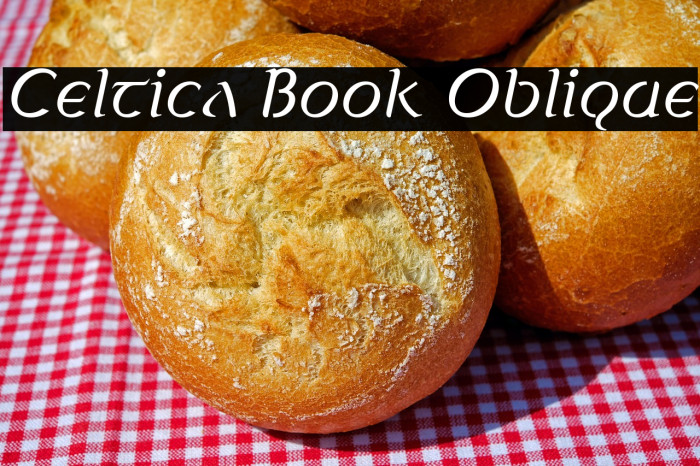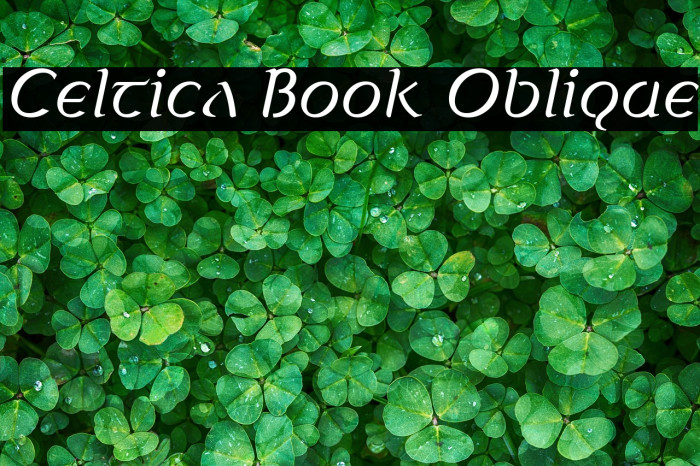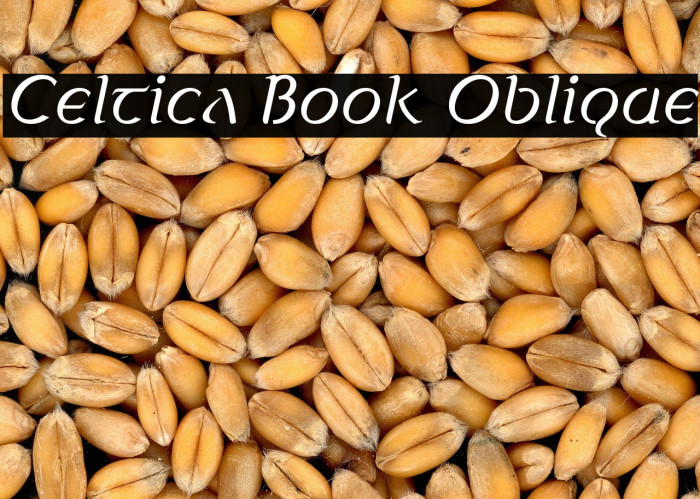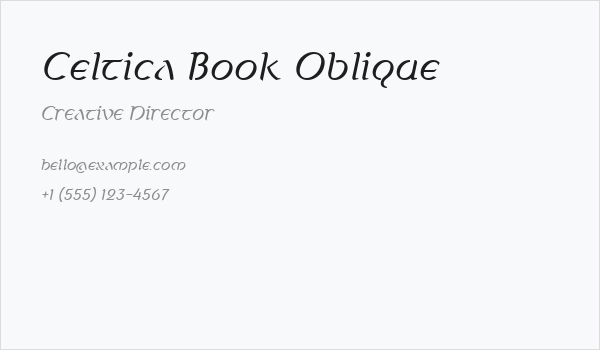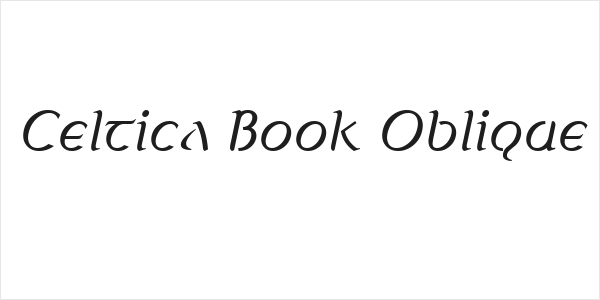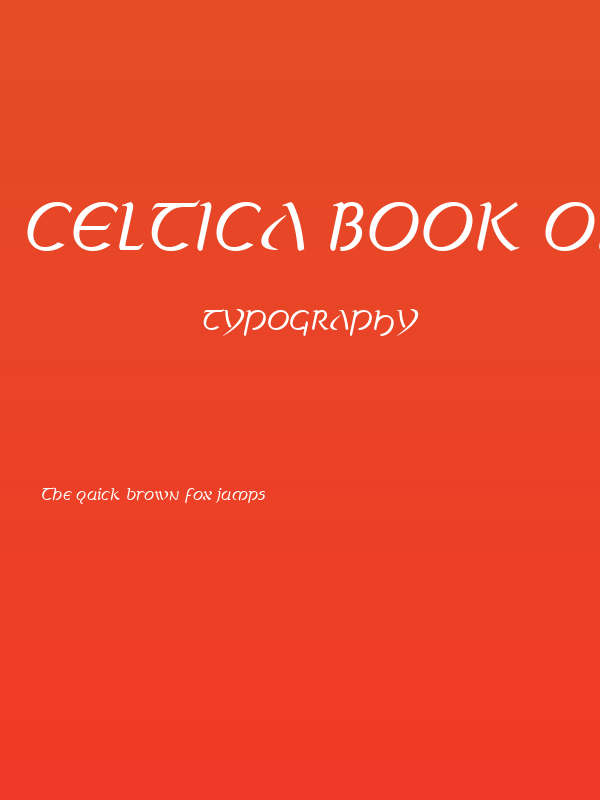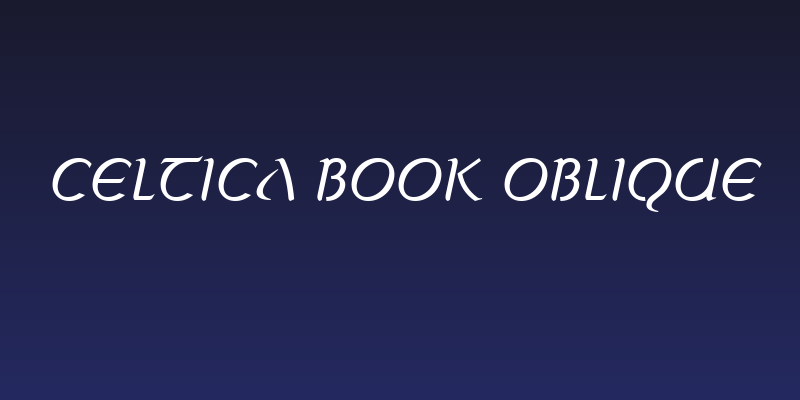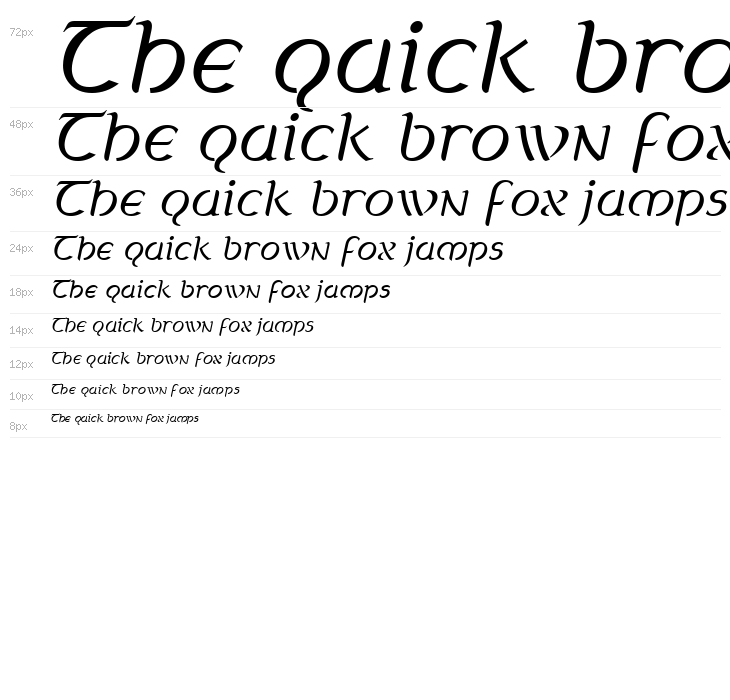
Celtica Book Oblique Font
Celtica Book Oblique Description
This font features a unique blend of traditional and modern elements, characterized by its elegant, flowing curves and slightly oblique stance. The letters have a calligraphic influence, with smooth transitions and a sense of movement that adds a dynamic quality to the text. The uppercase letters are distinct with their elongated forms and subtle serifs, while the lowercase letters maintain a consistent style, offering a harmonious look. The numerals and special characters are crafted with the same attention to detail, ensuring readability and aesthetic appeal. This font is ideal for projects that require a touch of sophistication and artistic flair.
| Proposed Projects | Suitable for wedding invitations, elegant branding, artistic posters, and book covers. |